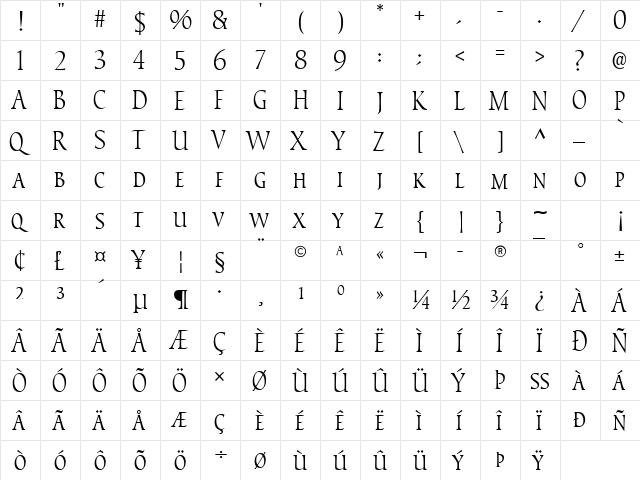
PompeiiCapitals Regular
Design Context for PompeiiCapitals Typeface
PompeiiCapitals is a composed and adaptable typeface that performs quietly and consistently across a wide range of design contexts.